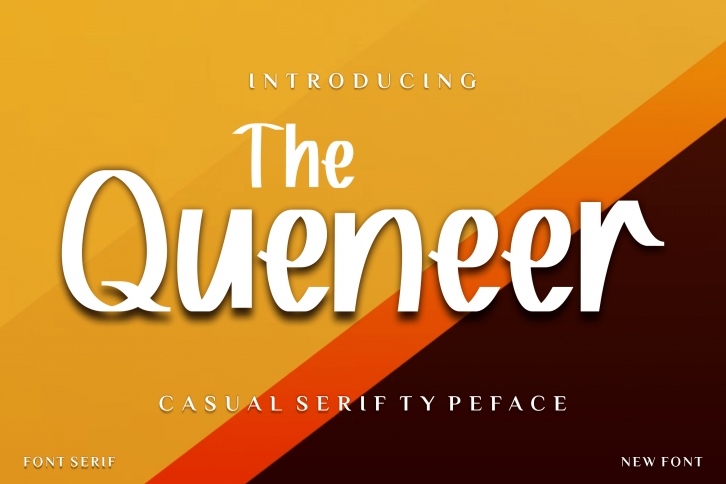
The Queneer is a simple and neat handwritten font. Whether you’re using it for crafts, digital design, presentations, or making greeting cards, this font has the potential to become your favorite go-to font, no matter the occasion!